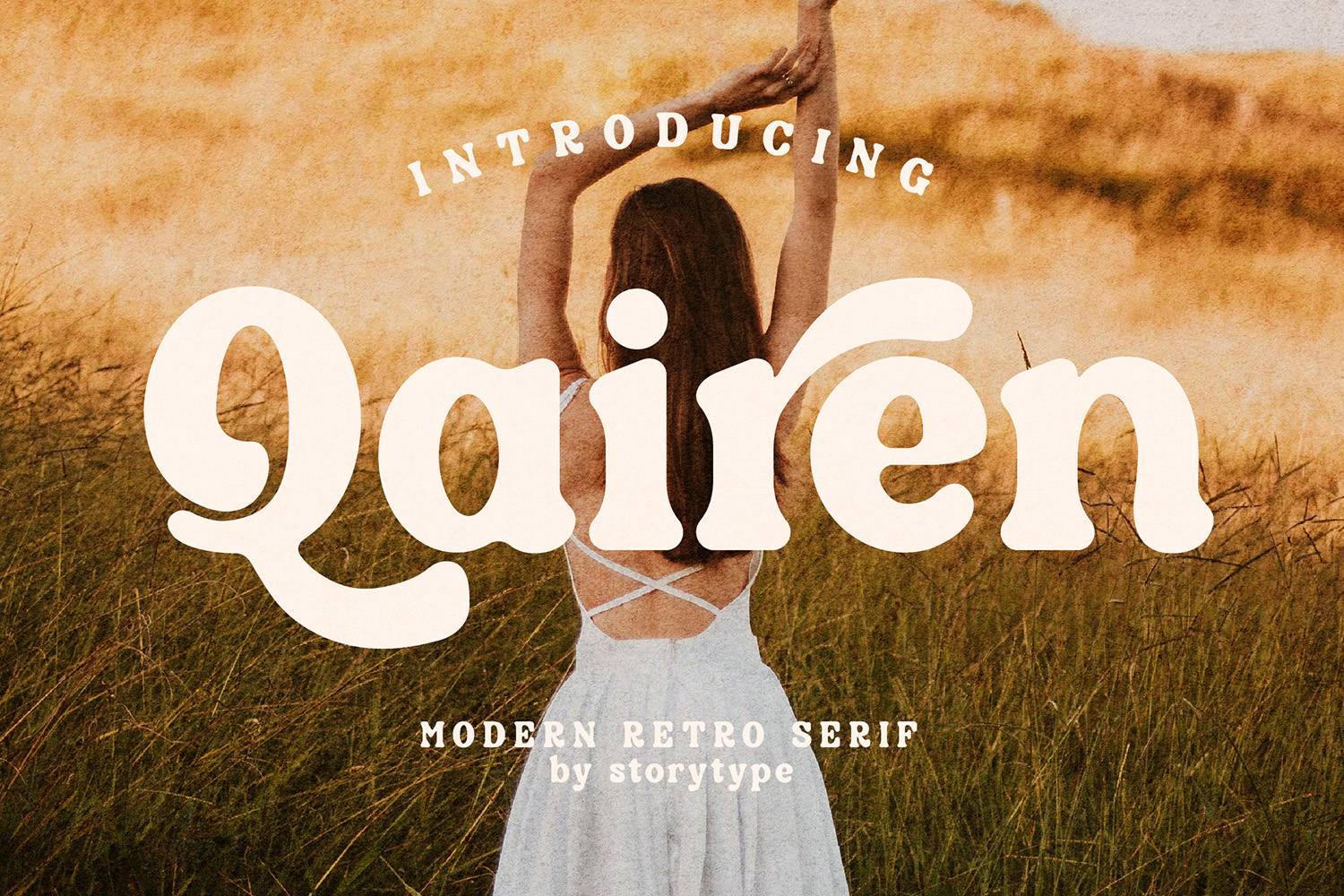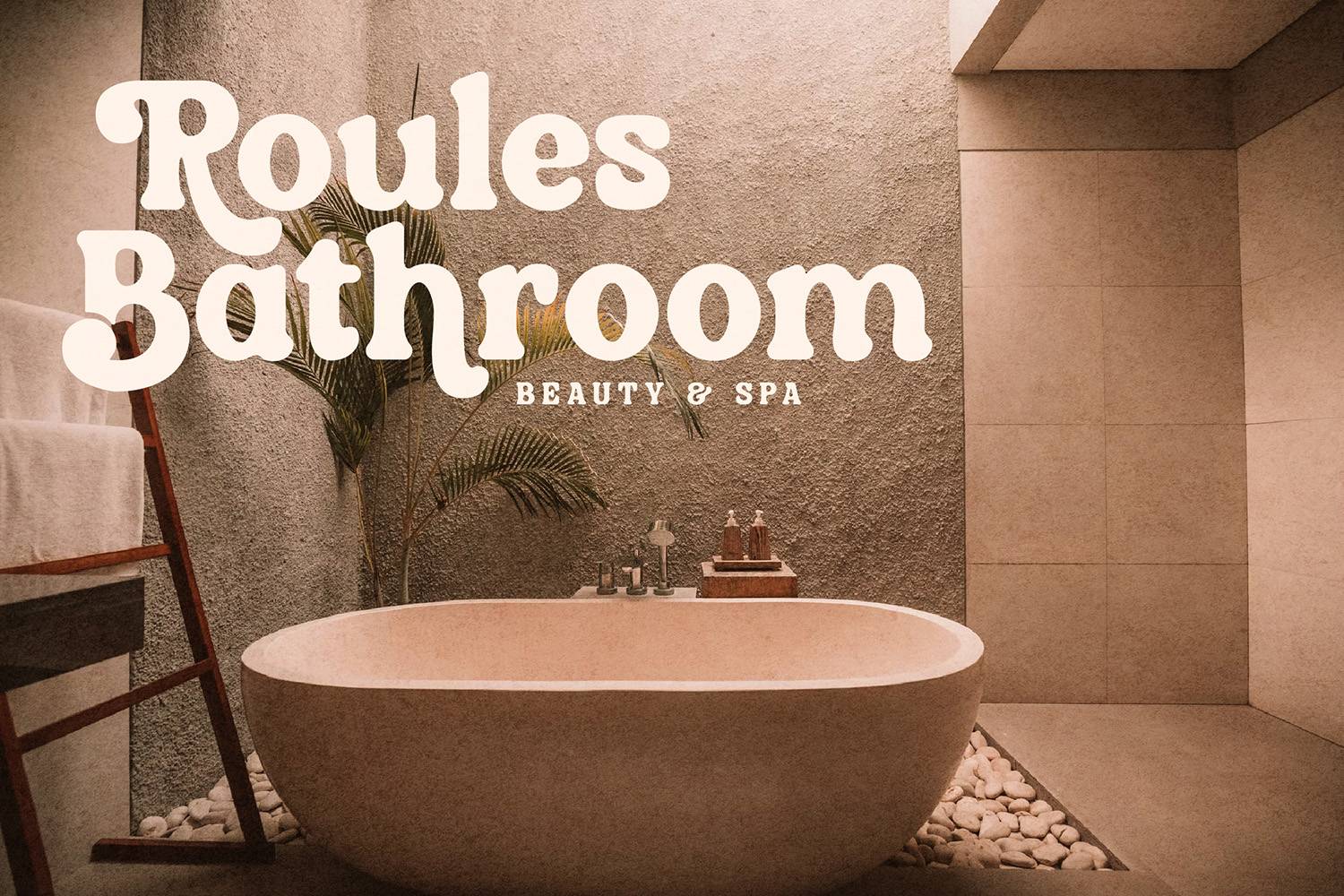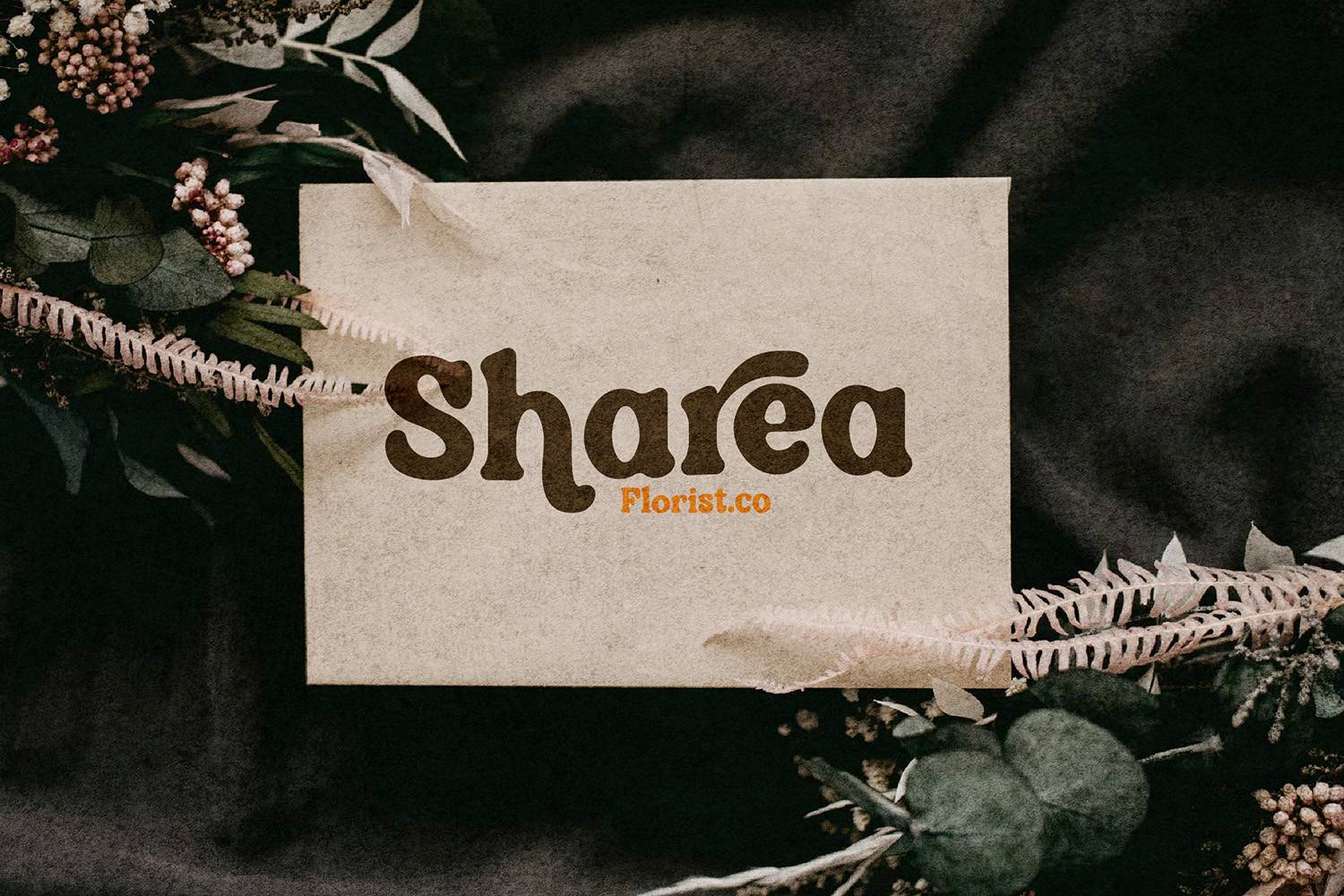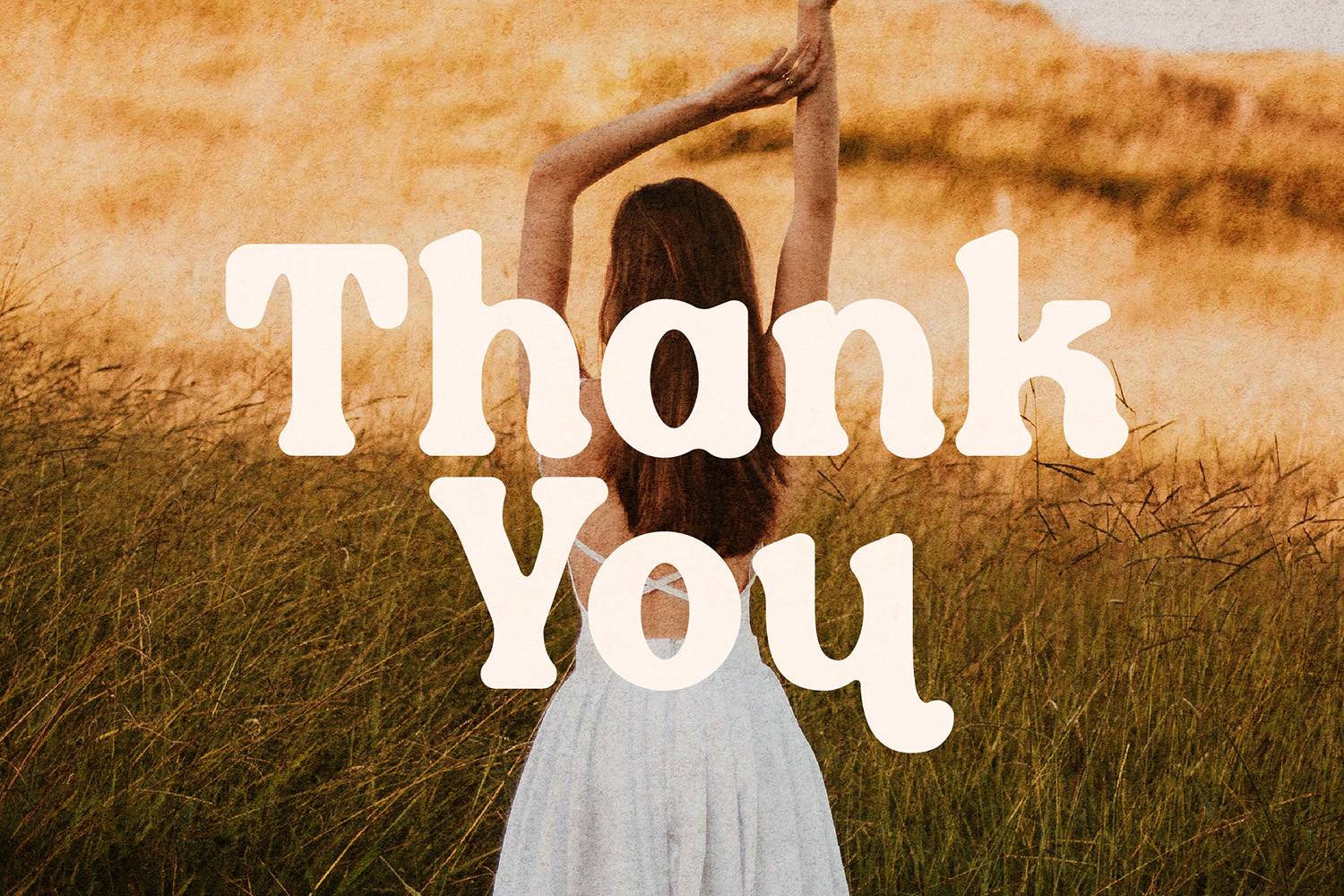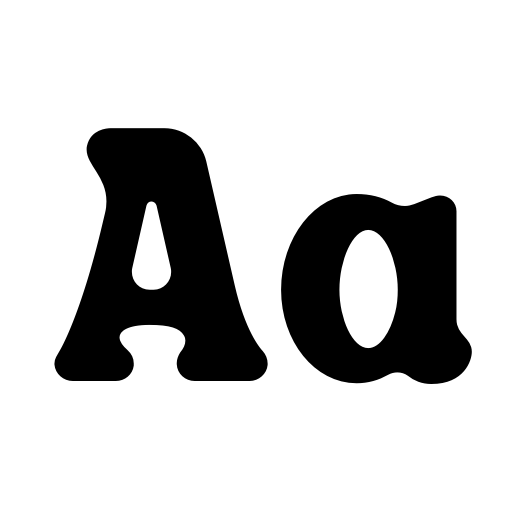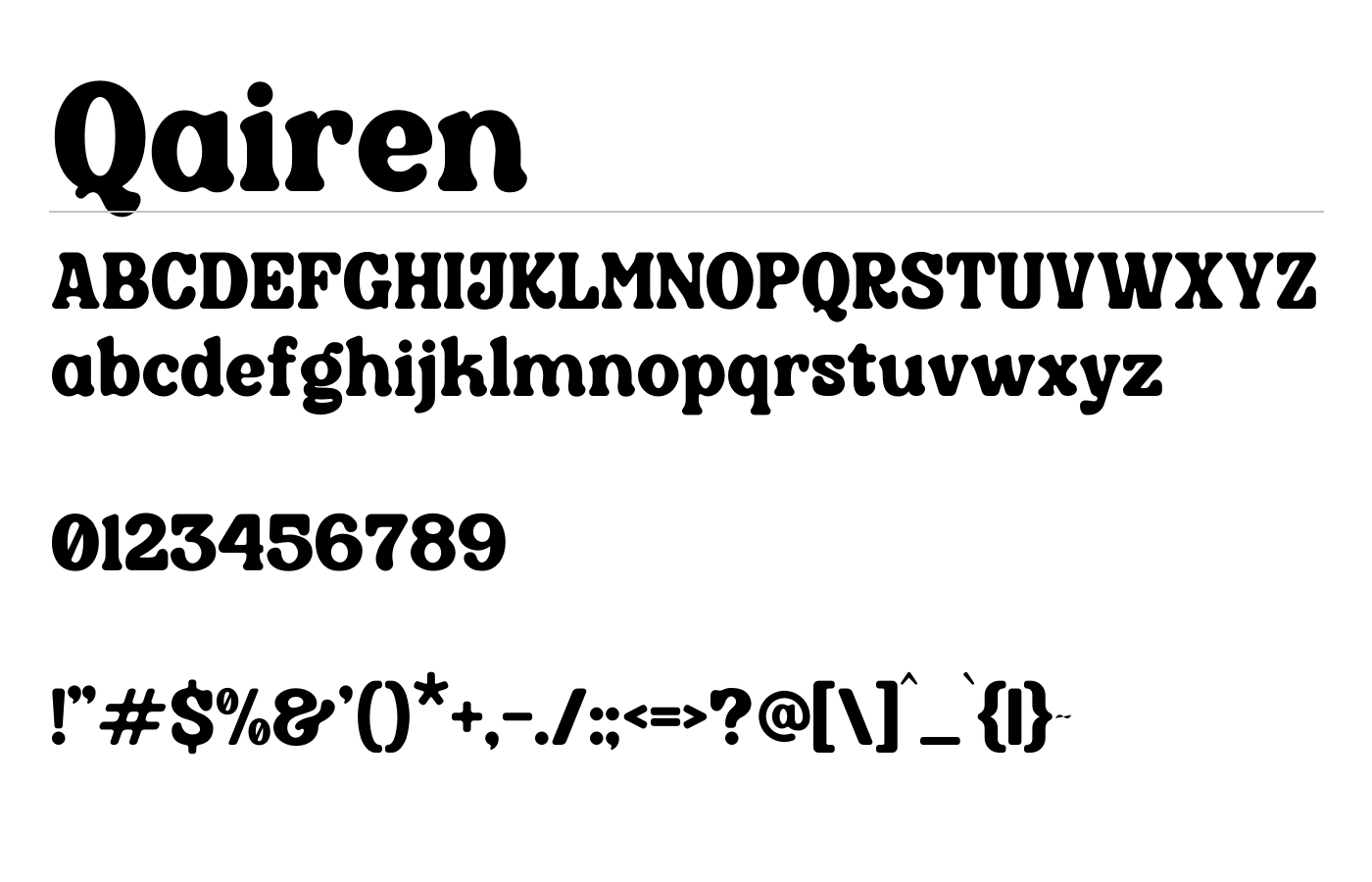
Qairen is a bold slab serif font with a strong, confident presence and a slightly playful character, thanks to its rounded, thick serifs and sturdy letterforms. It offers a balanced and readable design with moderate contrast and a friendly vibe, making it ideal for eye-catching headlines, posters, and branding that requires a mix of strength and warmth. This font works well in creative and retro-inspired designs where personality and impact are key.
Qairen Font
About Qairen Font